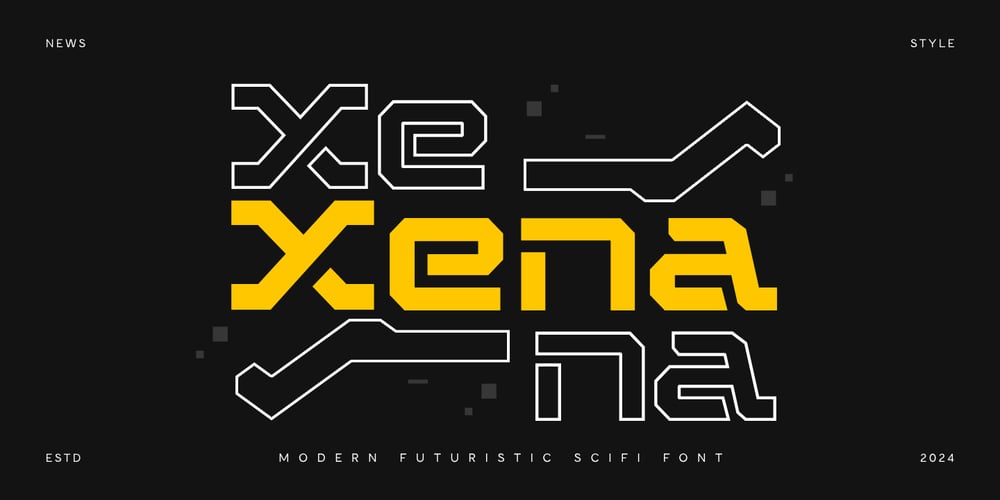
Xena
Xena font
Xena Font Family was designed by Zamroni Hamzah and published by Sensatype Studio. Xena contains 2 styles and family package options. Introducing Xena, the ultimate font for futuristic and cyberpunk-inspired designs. Perfectly blending sci-fi aesthetics with cutting-edge technology, Xena is designed to elevate your projects to a new level of modernity and innovation.Xena Font Features: Futuristic Style: Sleek and modern design, ideal for tech and sci-fi themes. Cyberpunk Appeal: Edgy and dynamic, perfect for cyberpunk-inspired visuals. Versatile Usage: Great for branding, posters, digital art, UI/UX designs, and more. Multiple Formats: Available in 4 formats for all your needs. Innovative Characters: Unique letterforms that stand out in any design. High Legibility: Clear and sharp, ensuring readability in both headlines and body text. Extended Character Set: Supports multiple languages and symbols for global use. Transform your designs with Xena, a font that brings the essence of futuristic, cyberpunk, and sci-fi technology to life. Whether you’re working on high-tech branding, immersive digital experiences, or sleek modern visuals, Xena provides the perfect blend of style and functionality. Embrace the future with Xena and make your designs unforgettable.